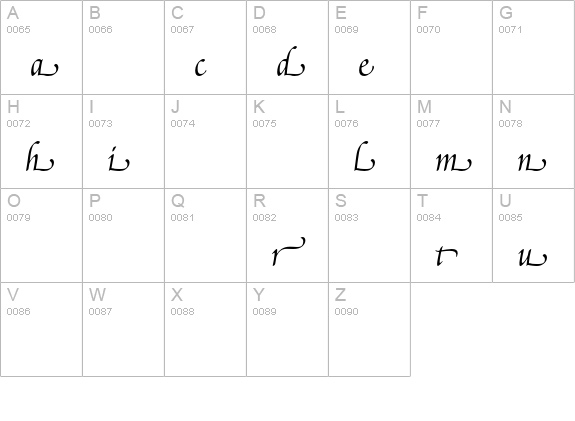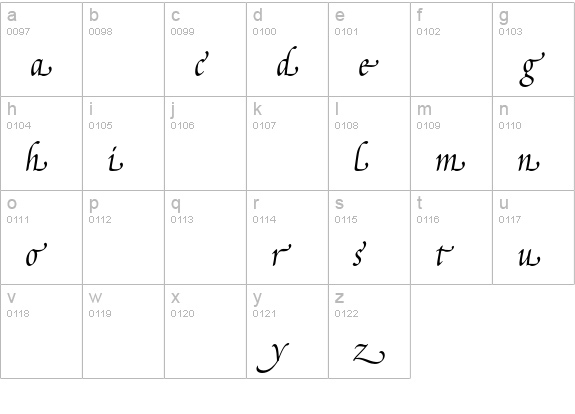
Poetica Supp Lowercase Endings I font is a stunning and elegant typeface that adds a touch of sophistication to any design project. Its delicate lowercase endings give a unique and artistic flair to your text, making it perfect for poetry, invitations, or any creative endeavor where a touch of beauty is desired. This font exudes a sense of grace and elegance, with its flowing lines and intricate details. Each letter is meticulously crafted to create a harmonious and visually pleasing composition. Poetica Supp Lowercase Endings I font will surely captivate your audience and leave a lasting impression. Best of all, this exquisite font is available for free download at FontsMarket.com. Now you can elevate your designs with this beautiful typeface without breaking the bank. Don't miss out on the opportunity to add a touch of sophistication to your projects with Poetica Supp Lowercase Endings I font. Download it today and let your creativity soar.